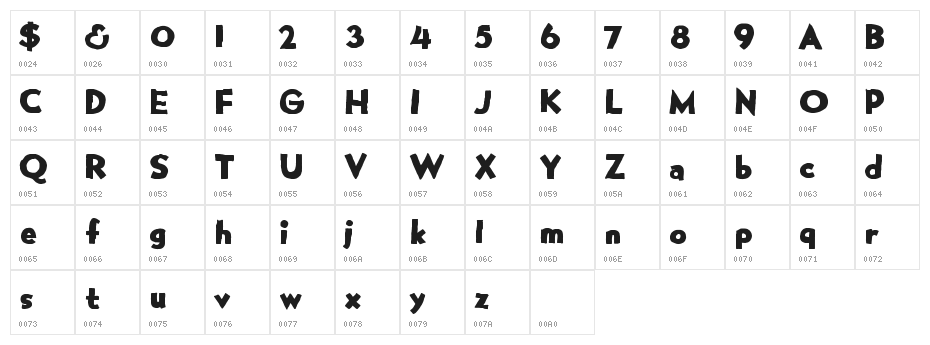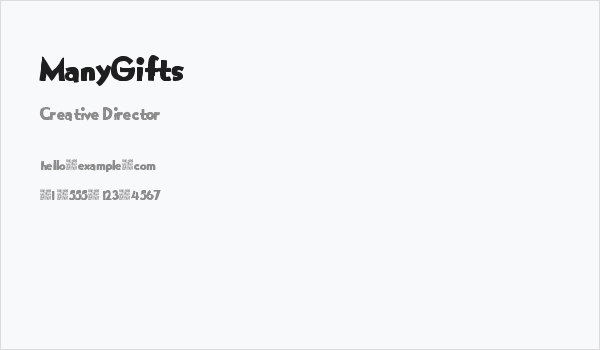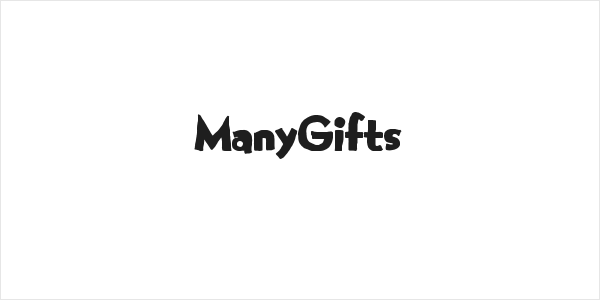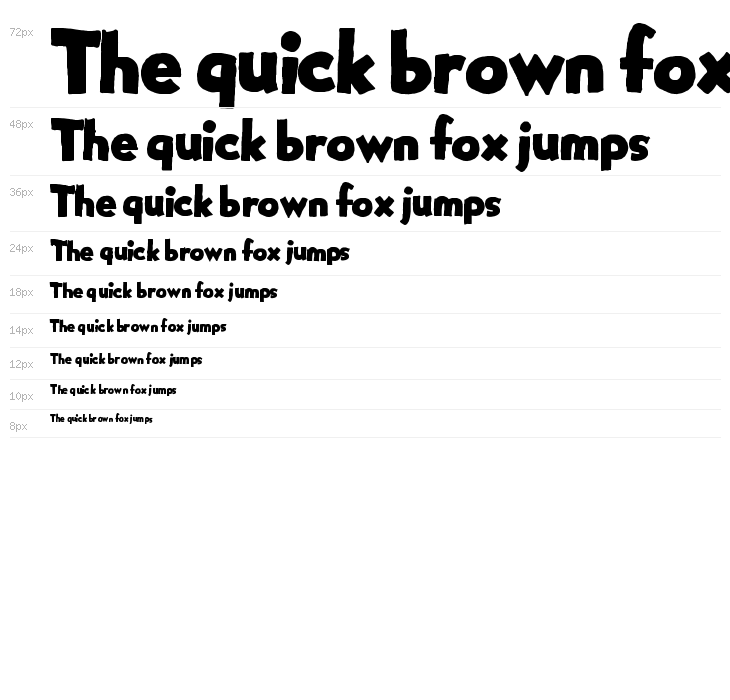
ManyGifts Font
| Stil general | Playful, Artistic |
| Proiecte propuse | Ideal for children's books, creative posters, playful branding, and artistic invitations. |